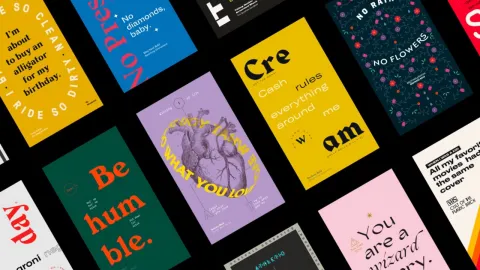
TypoStories: a graphical study on typefaces and font pairings
Davide Baratta is a design lead based in London, UK and has shared an interesting case study on his Behance. It's an exploration/ case study on typefaces and font pairings titled: TypoStories. It's playful, colorful and a nice exploration from current type foundries (mostly his own favorites). I just love how his series is diversified in terms of creative concepts going all the way from the 90s to pure experimental. Hope you will enjoy!
Typostories is a study about typefaces and font pairings. Started from the need of exploring diverse typographic solutions while staying up to date with the newest releases from my favorite independent type foundries